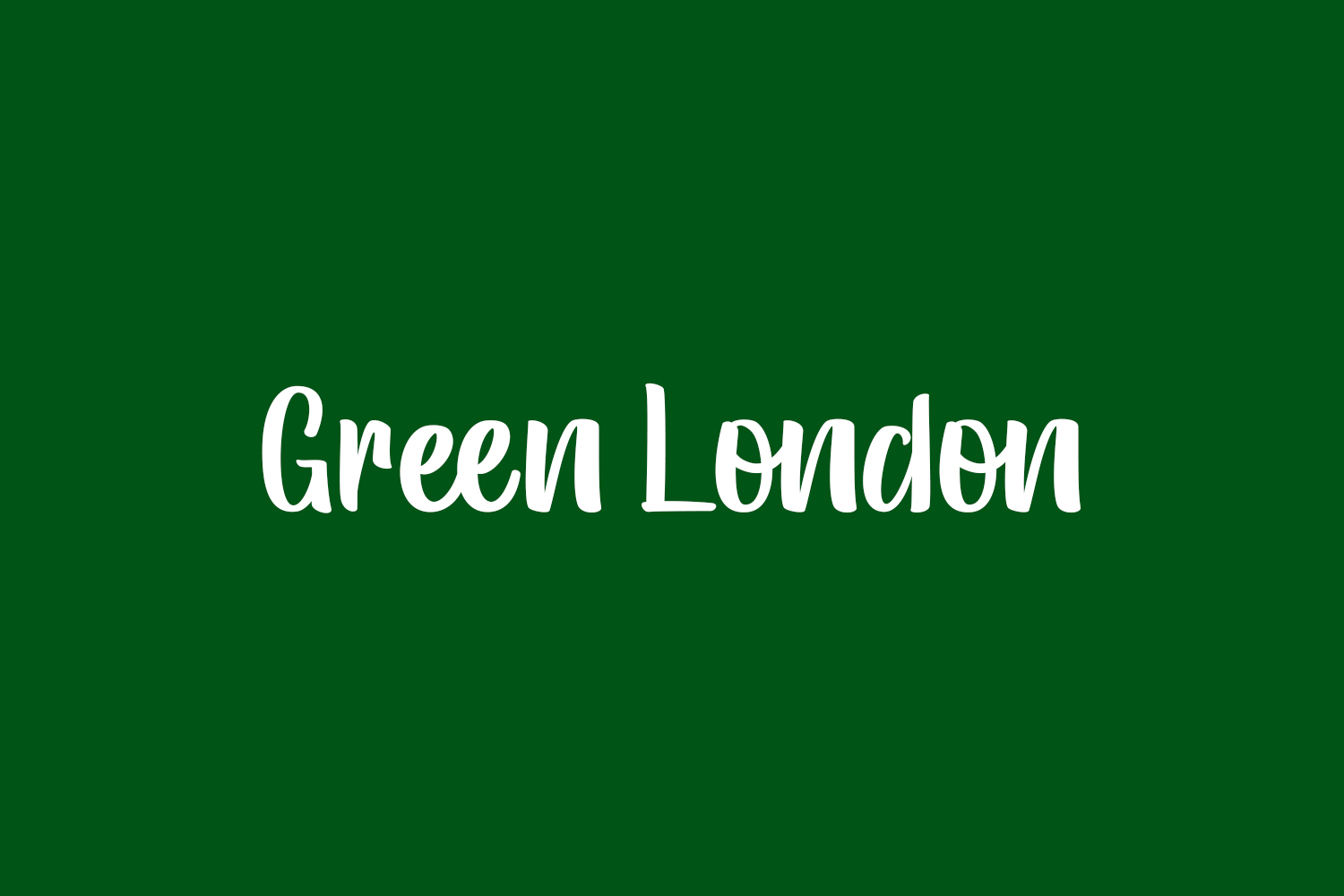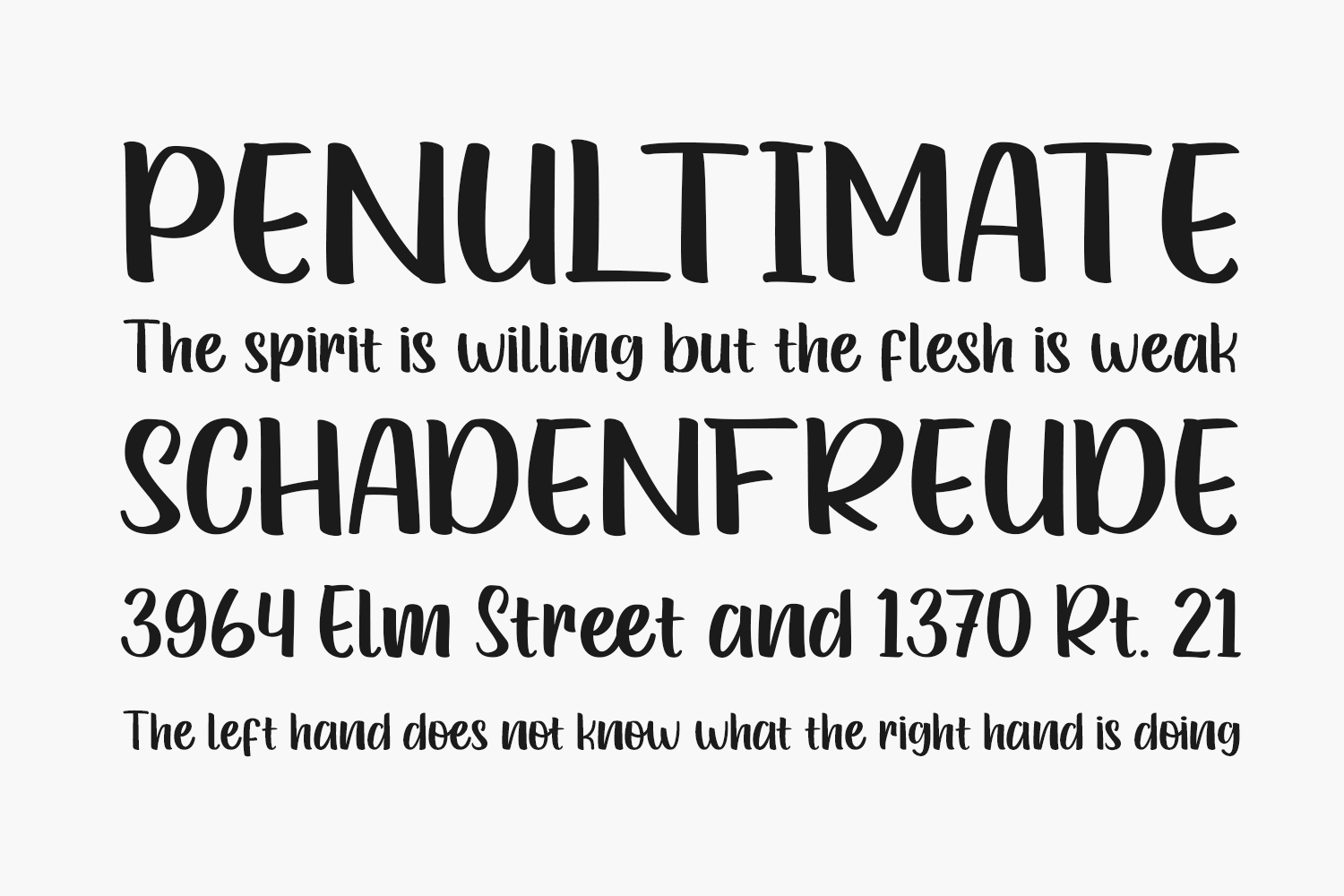
Green London Free Font is a cute and playful display font. It looks wonderful in a variety of designs, both formal and informal. Whether you’re using it for crafting, digital designS, presentations, or greeting cards, it’s perfect. Green London Free Font was designed by The Typerex and is free for personal use only. Please purchase the full version for commercial use.